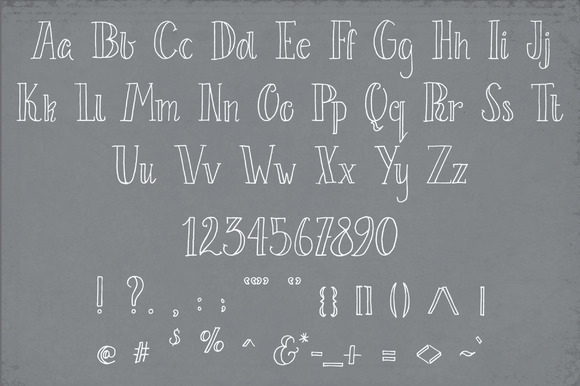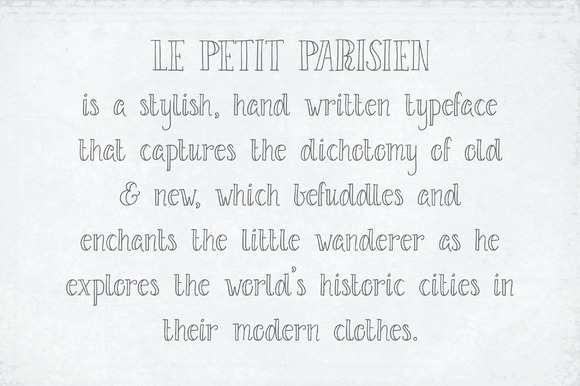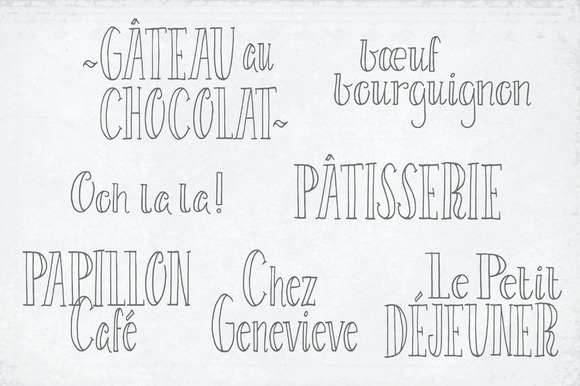
Introduction to Le Petit Parisien Light Font
Le Petit Parisien Light is a light cute hand writing font that is inspired by the city of love historic feel.
This font combines the old and new Paris which gives it a unique mix of modern letters with a vintage feeling La Petit Parisien Light is the perfect font for invites, menuโs, place cards, shirts and much more.